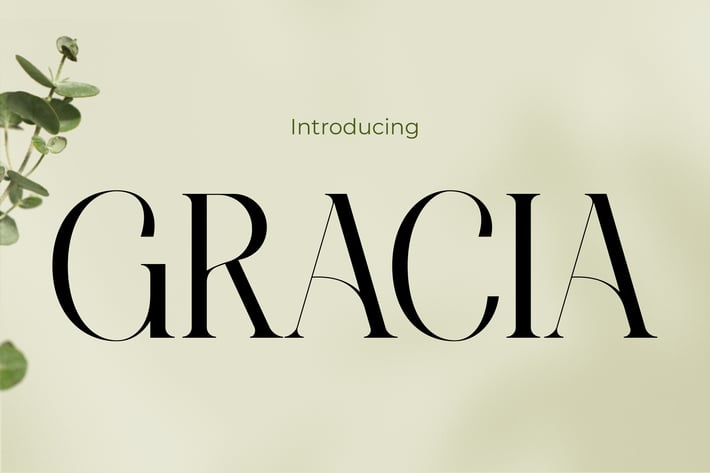
Gracia - Modern Elegance Font
Gracia
Gracia is a poised and graceful serif typeface that brings a fashion-forward flair to modern design. With its crisp high contrast between thick and thin strokes, finely sculpted serifs, and generous letterspacing, this font evokes sophistication and contemporary elegance. Designed to shine in high-end contexts like cosmetic branding, lookbooks, or wedding stationery, Gracia's refined structure and timeless feel make it a standout in both digital and print applications.
From boutique branding to luxury packaging and fashion editorials, Gracia lends your designs a polished, high-end personality. Its commanding presence and editorial elegance make it ideal for designers seeking a timeless but fresh serif with a powerful visual voice. Use it to elevate brand perception, attract premium audiences, and make statements that resonate with refinement.
Key Features
Designed for high-impact elegance in modern luxury branding :
- High contrast serif with a balanced mix of sharp and soft elements
- Stylish for fashion spreads, luxury product packaging, editorial layouts, and cosmetics branding
- Elegant proportion and spacing optimized for display use
- Elevates minimal design with classic sophistication